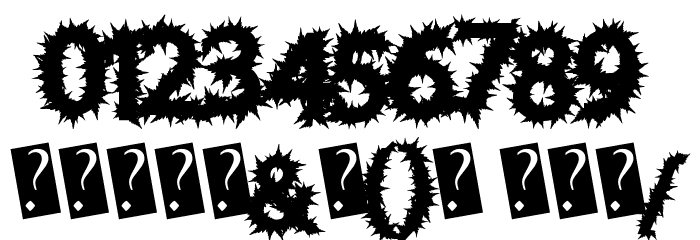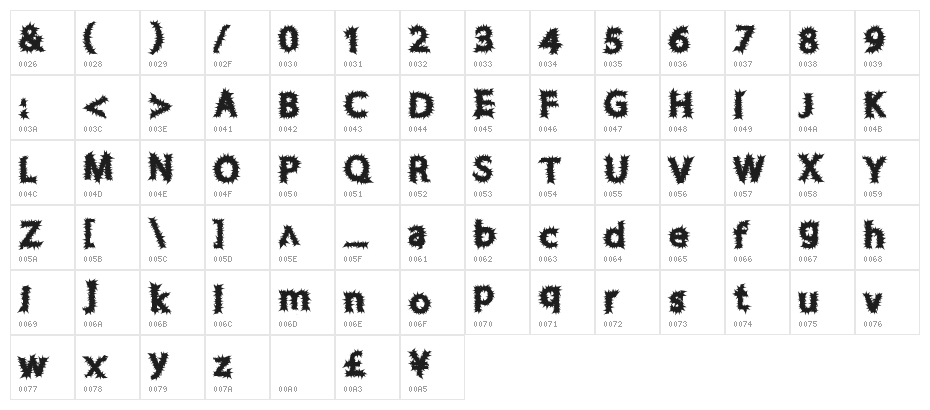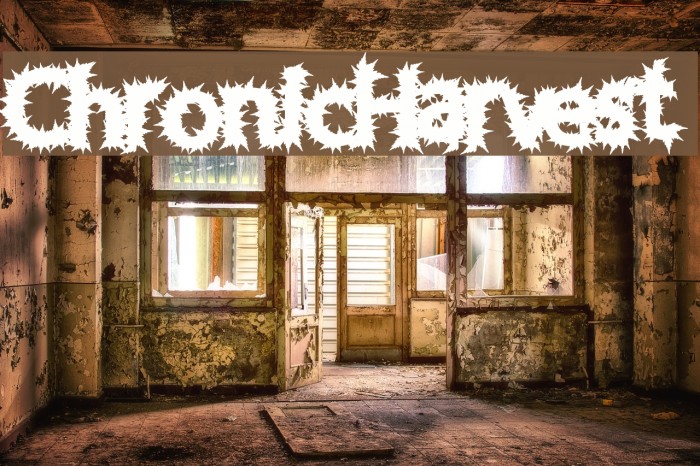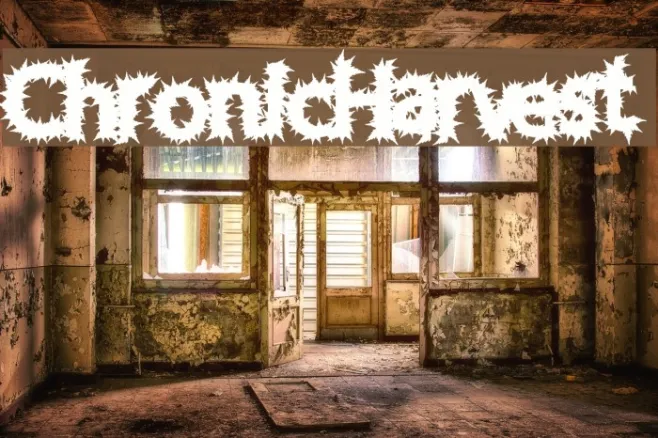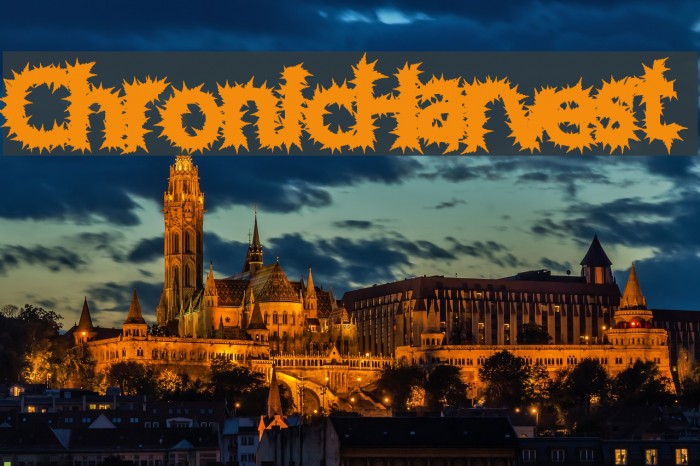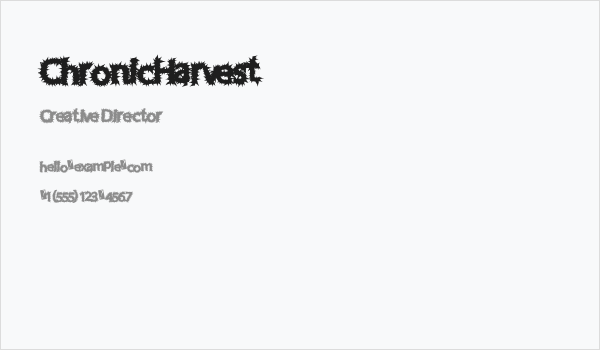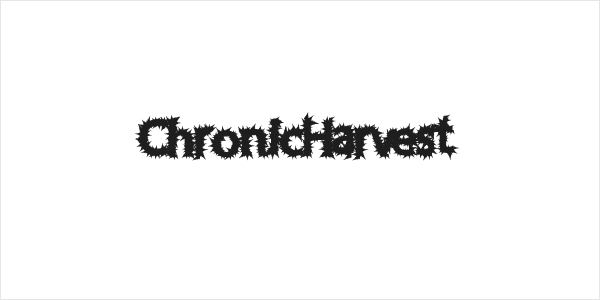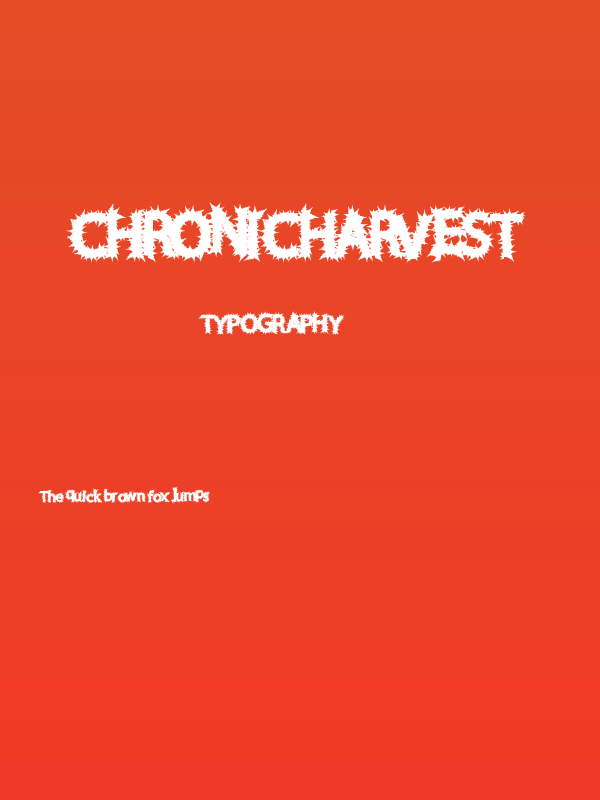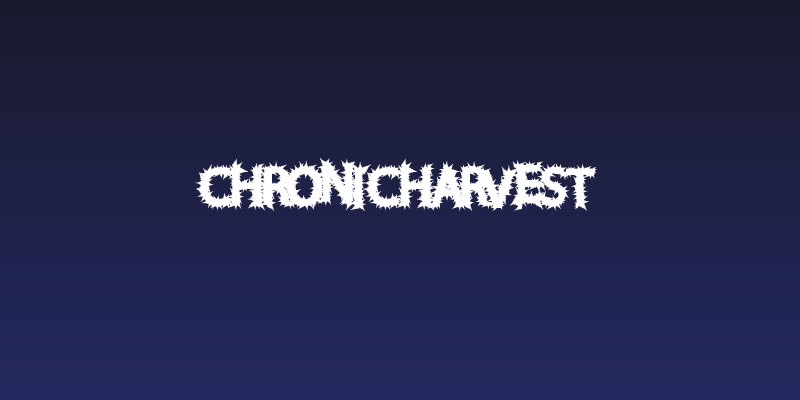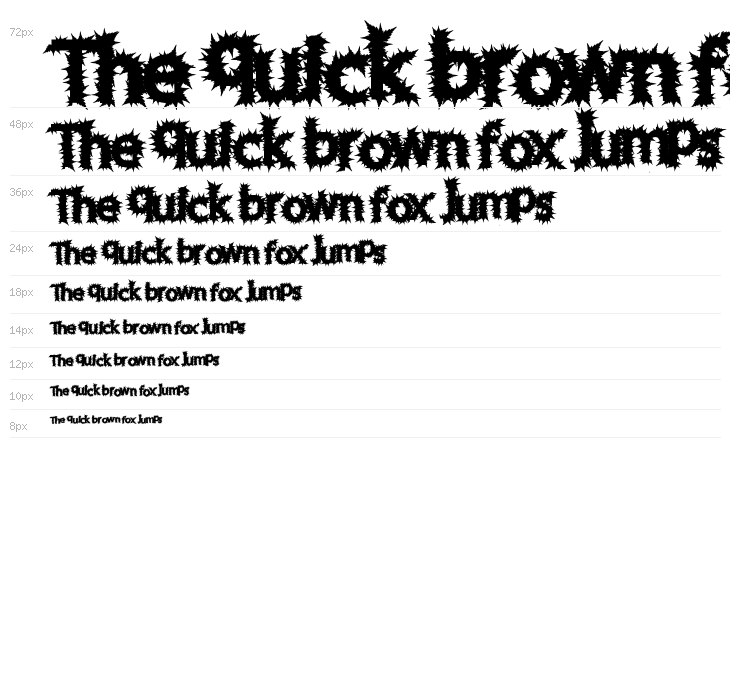
ChronicHarvest Font
ChronicHarvest Description
This font features a bold and spiky design, reminiscent of thorny vines or jagged edges. Each character is filled with sharp, irregular protrusions, creating a sense of chaos and intensity. The uppercase and lowercase letters maintain a consistent style, with the spikes giving the font a dynamic and aggressive appearance. Numbers and special characters follow the same design principles, ensuring uniformity across all glyphs. The font's unique style makes it stand out, perfect for projects that require a dramatic and eye-catching typeface.
Proposed ProjectsIdeal for horror-themed posters, edgy album covers, or Halloween event flyers.